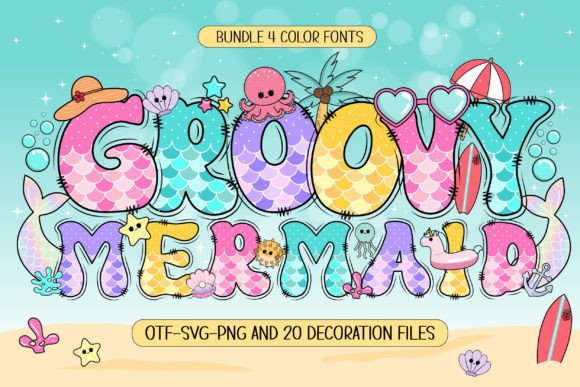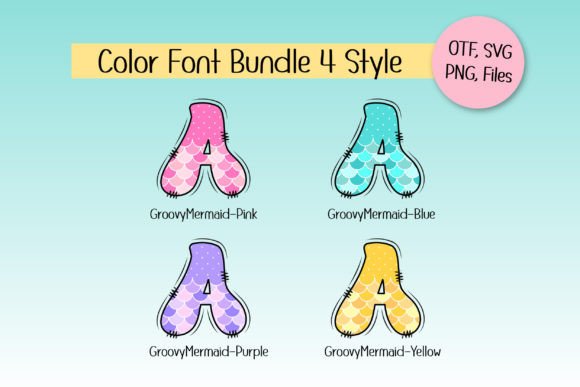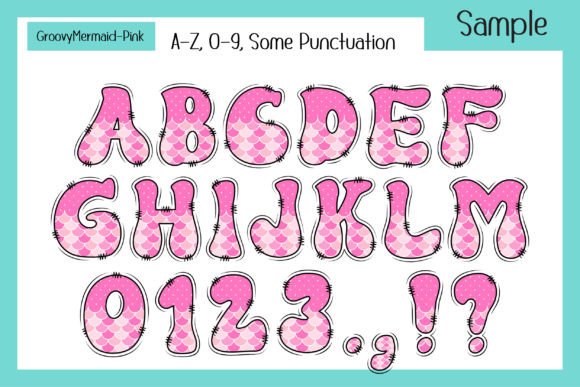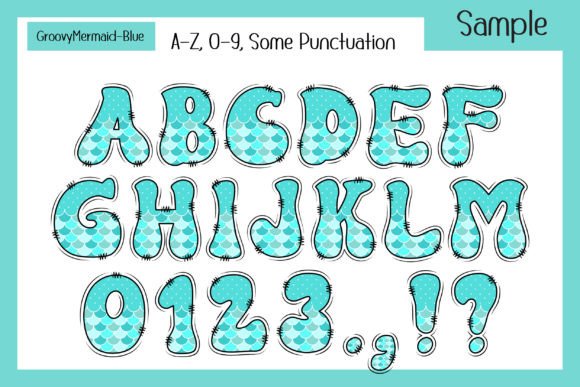
Groovy Mermaid Font
About the Groovy Mermaid Font
Introducing the Groovy Mermaid Font, a beautifully crafted typeface designed to elevate your creative projects. Introducing “Groovy Mermaid” a vibrant color font inspired by mermaids, fantasy, and the carefree vibes of summer. This whimsical font transports you to a world of children’s dreams with its delightful design. It consists of 4 sweet color fonts and includes 20 bonus matching clip arts, making it perfect for custom DIY craft projects, personalized names, sublimations, posters, and many other creative works. Add a touch of magic and fantasy to your creations with “Groovy Mermaid”!
Groovy Mermaid’s playful, whimsical style is ideal for children’s book illustrations, playful branding for summer products, eye-catching posters, and vibrant social media graphics. Its decorative nature makes it less suitable for body text or UI elements requiring high readability. Avoid using it for lengthy paragraphs or situations demanding clear, concise communication.
Consider pairing Groovy Mermaid with a clean sans-serif like Open Sans for contrast and readability in layouts requiring both display and body text. For a more whimsical feel, a rounded geometric sans-serif such as Bebas Neue could be used for headlines. Alternatively, a delicate script font could add a touch of elegance while balancing the font’s inherent playfulness.
The font projects a lighthearted, fun, and slightly magical personality, perfect for brands targeting a young, creative audience. Its vibrant color palette lends itself particularly well to projects centered on joy, fantasy, and summertime themes.